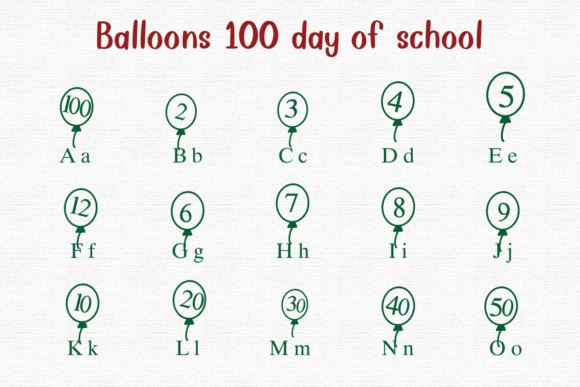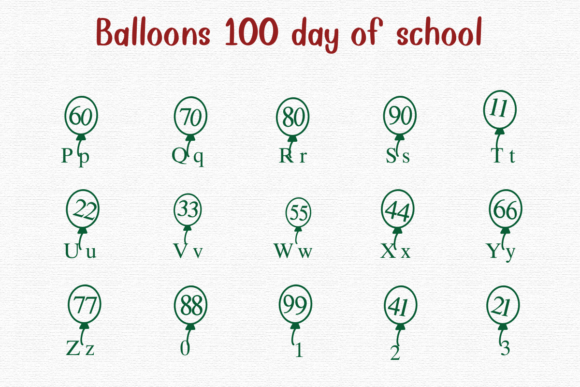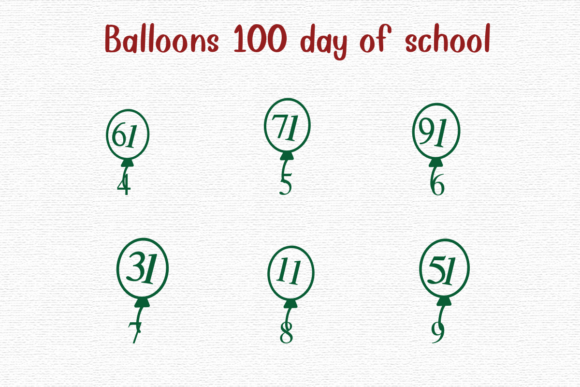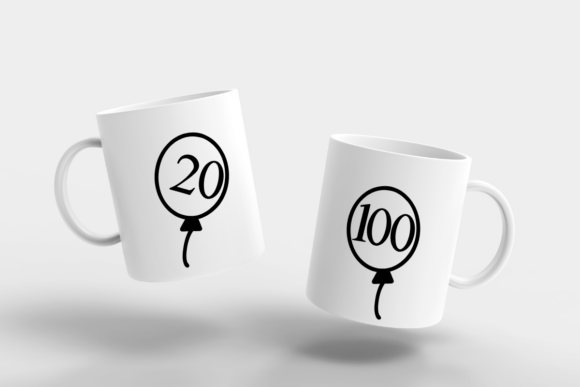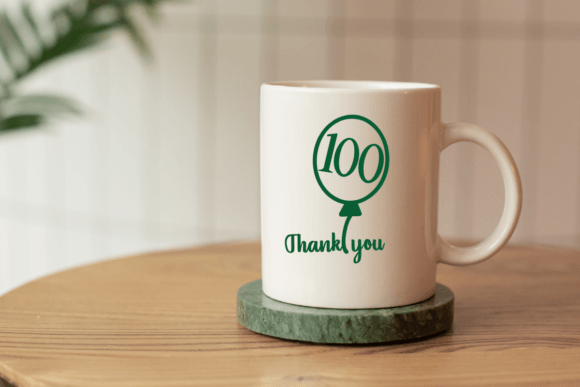
Get Ready to Pop with Joy: Celebrating Milestones with Balloons 100 Days of School Dingbat Font
Do you ever get that feeling when you’re working on a project and suddenly, a spark of creativity hits you? You see it all come together in your mind’s eye, and you just can’t wait to bring it to life? That’s exactly what happened to me when I stumbled upon the Balloons 100 Days of School Dingbat Font Font. Its colorful balloons and playful design instantly put a smile on my face, and I knew I had to share it with the world.
This delightful font is designed specifically to mark milestones and create festive designs, making it a must-have for school events, countdowns, party decorations, and classroom projects. With its unique dingbat characters featuring balloons with numbers, you’ll be able to add a playful and celebratory touch to any design. Whether you’re a seasoned designer or just starting out, the Balloons 100 Days of School Dingbat Font Font is sure to bring a breath of fresh air to your creative endeavors.
Balloons 100 Days of School Dingbat Font Font Key Features
- Font Size: The font comes in a single size, making it easy to use and integrate into your designs. However, the size can be adjusted according to your needs.
- Resolution: The font is designed to be scalable, allowing it to maintain its quality and clarity at various resolutions.
- Unique Characteristics: The font features fun and colorful dingbats that make it perfect for creating engaging and playful designs, especially for children’s educational materials and party decorations.
- Font Style: The font has a bold and playful style, making it ideal for use in headings, titles, and other prominent design elements.
Balloons 100 Days of School Dingbat Font Font Review
Overall, I was excited to dive into the Balloons 100 Days of School Dingbat Font Font. The design itself is quite cute and cheerful, which is perfect for the 100th day of school theme. ✨ The dingbat font elements are fun and playful, and I can see how they’d be a hit with kids. ✨ The font’s bright colors and bubbly texture add a nice touch to any design.
- Fun and playful design that’s perfect for the 100th day of school theme ✨
- Cute dingbat font elements that are sure to delight kids ✨
- Bright colors and bubbly texture add a nice touch to any design ✨
While the design is overall cute and cheerful, there are a few limitations that prevent it from being perfect. ⚠️ The font’s consistency is somewhat lacking, with some elements feeling a bit mismatched. Additionally, the texture can be a bit overwhelming if used too liberally. ⚠️ It’s also worth noting that the font’s size and scalability may not be ideal for all projects.
Overall, I’d say the Balloons 100 Days of School Dingbat Font Font is a great choice for those looking for a fun and playful design. While it may have a few limitations, the positives far outweigh the negatives. With a bit of careful use and consideration, this font is sure to bring a smile to kids’ faces.
The Balloons 100 Days of School Dingbat Font Font is perfect for:
1. 100th day of school celebrations.
2. Back to school designs.
3. Educational posters and flyers.
4. Party invitations and decorations.
5. Any project that requires a fun and playful font.
Can I customize the Balloons 100 Days of School Dingbat Font to fit my specific design needs?